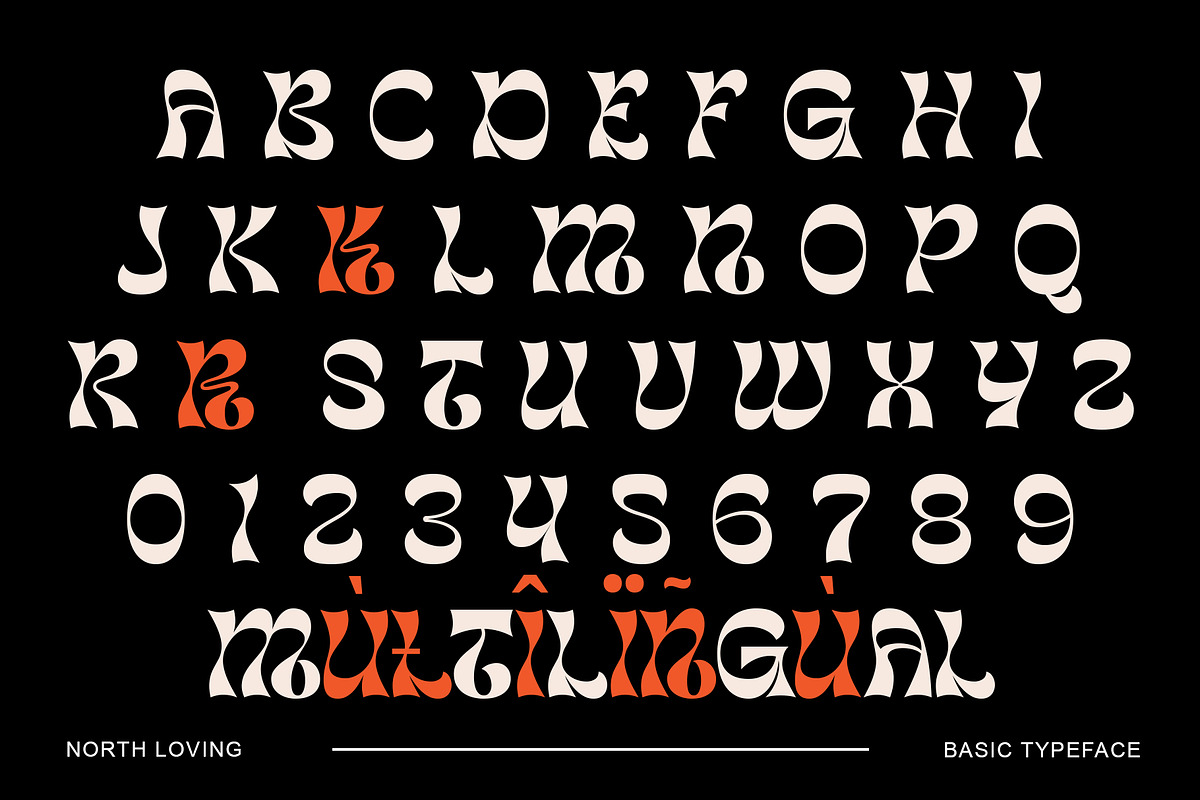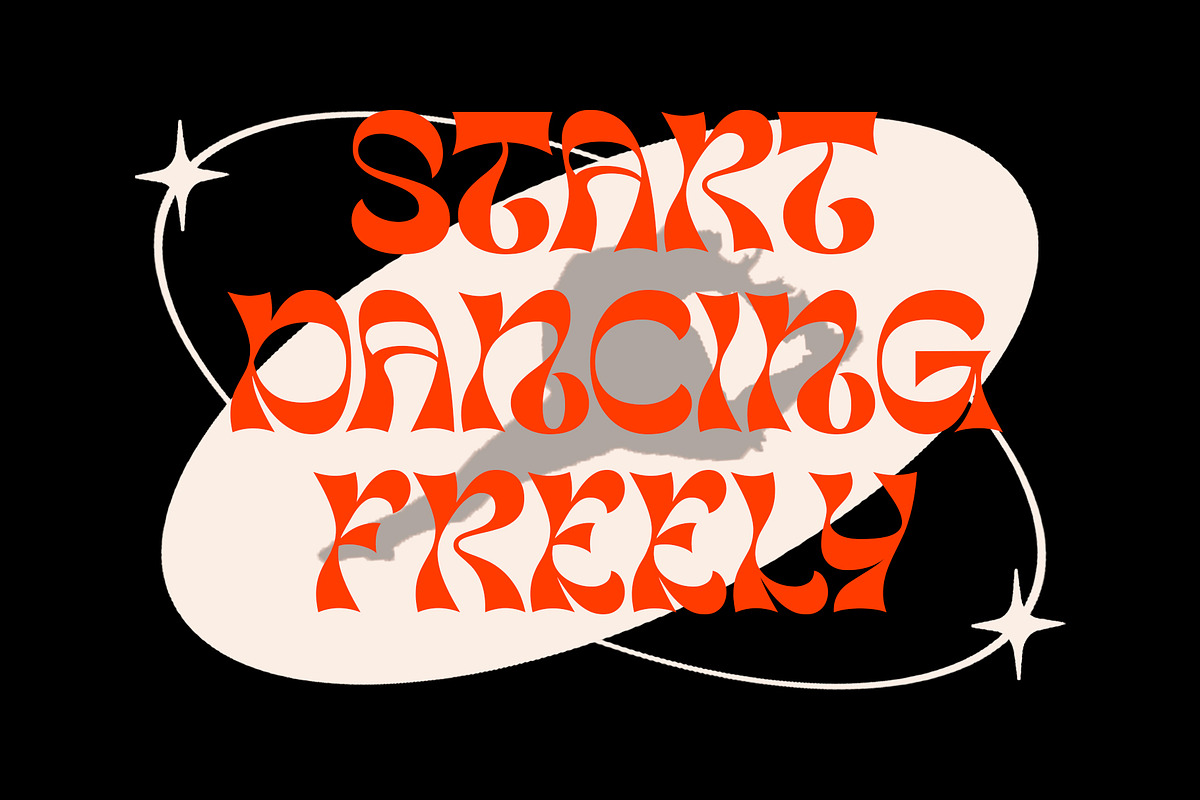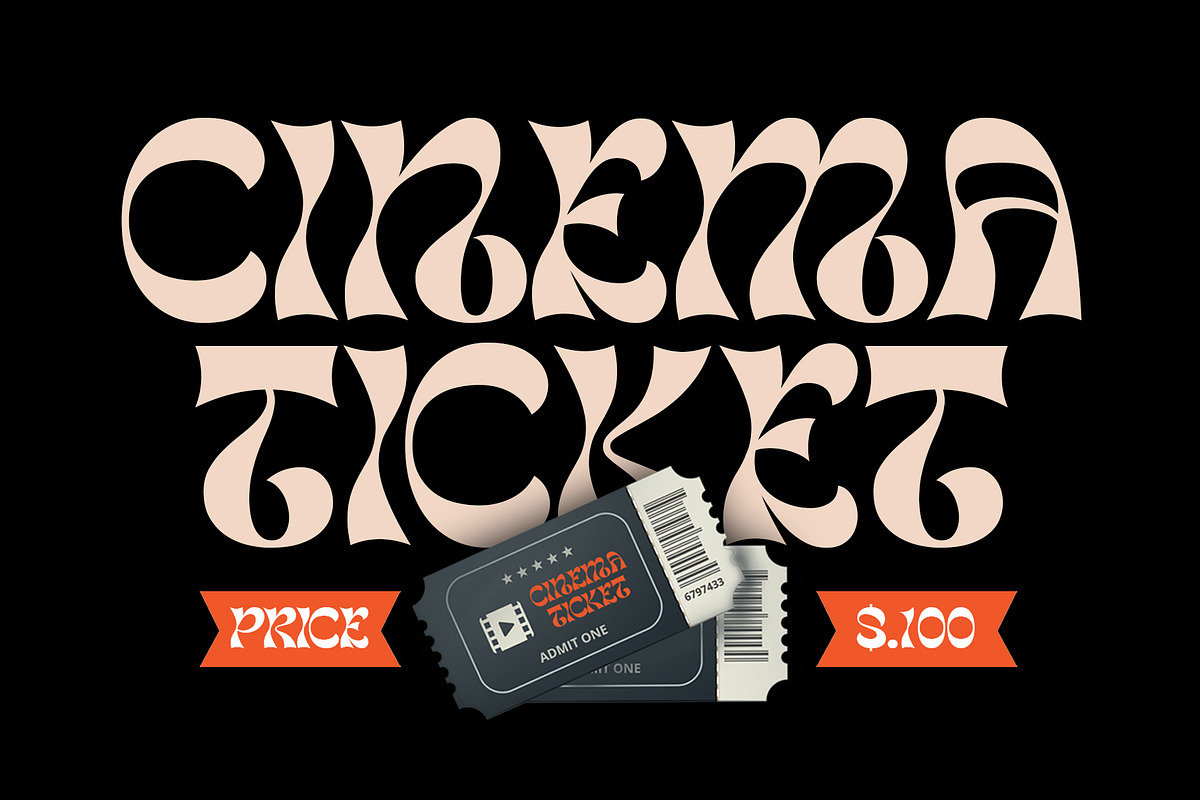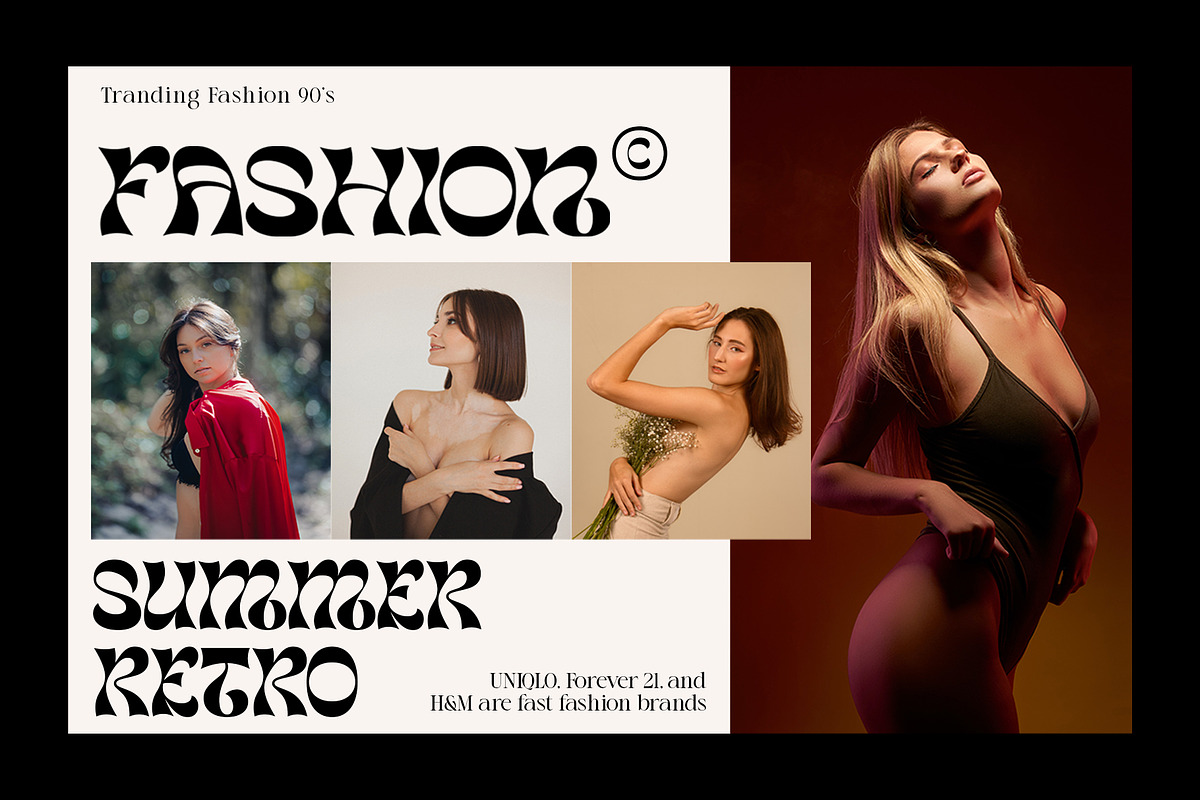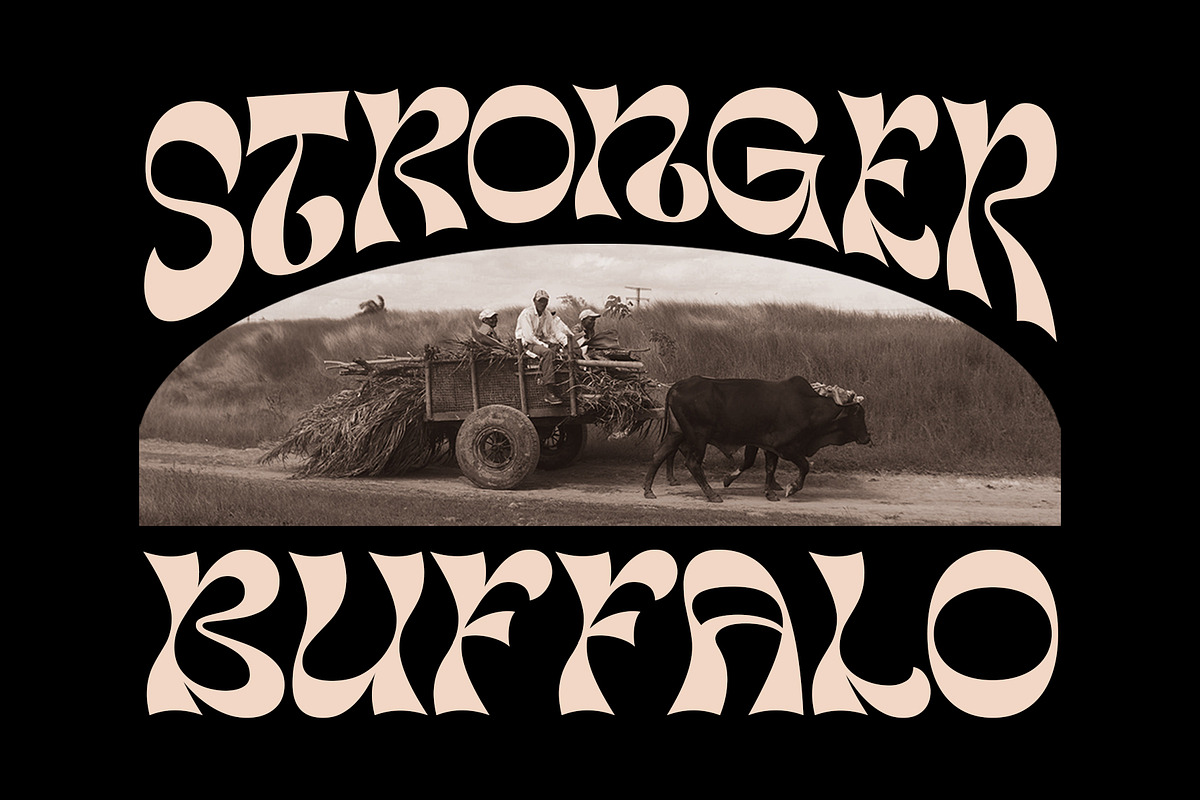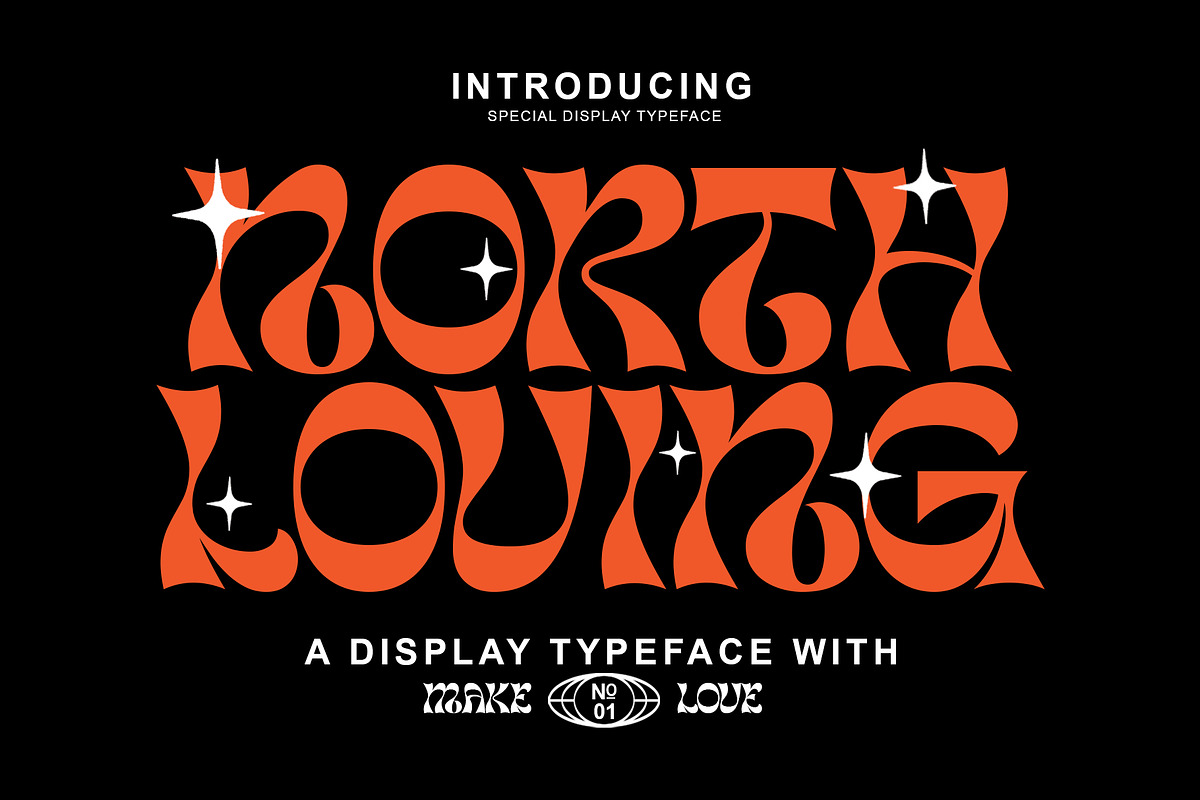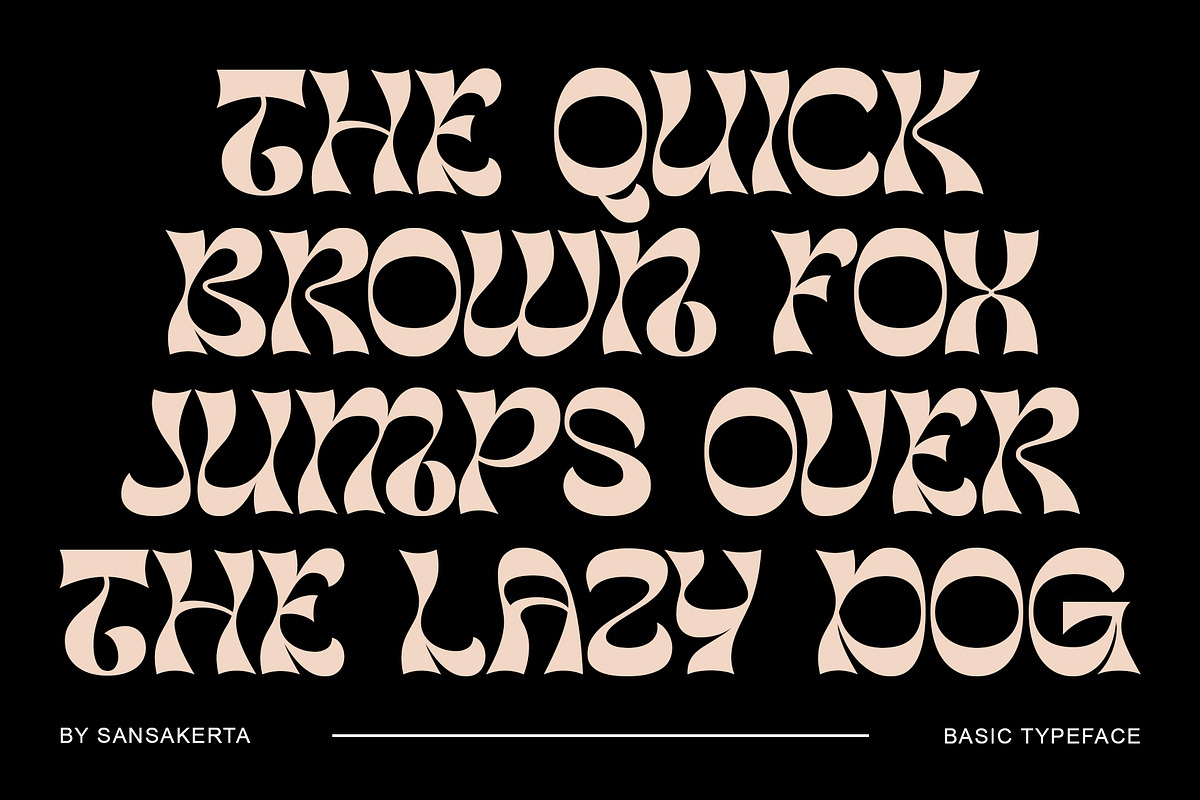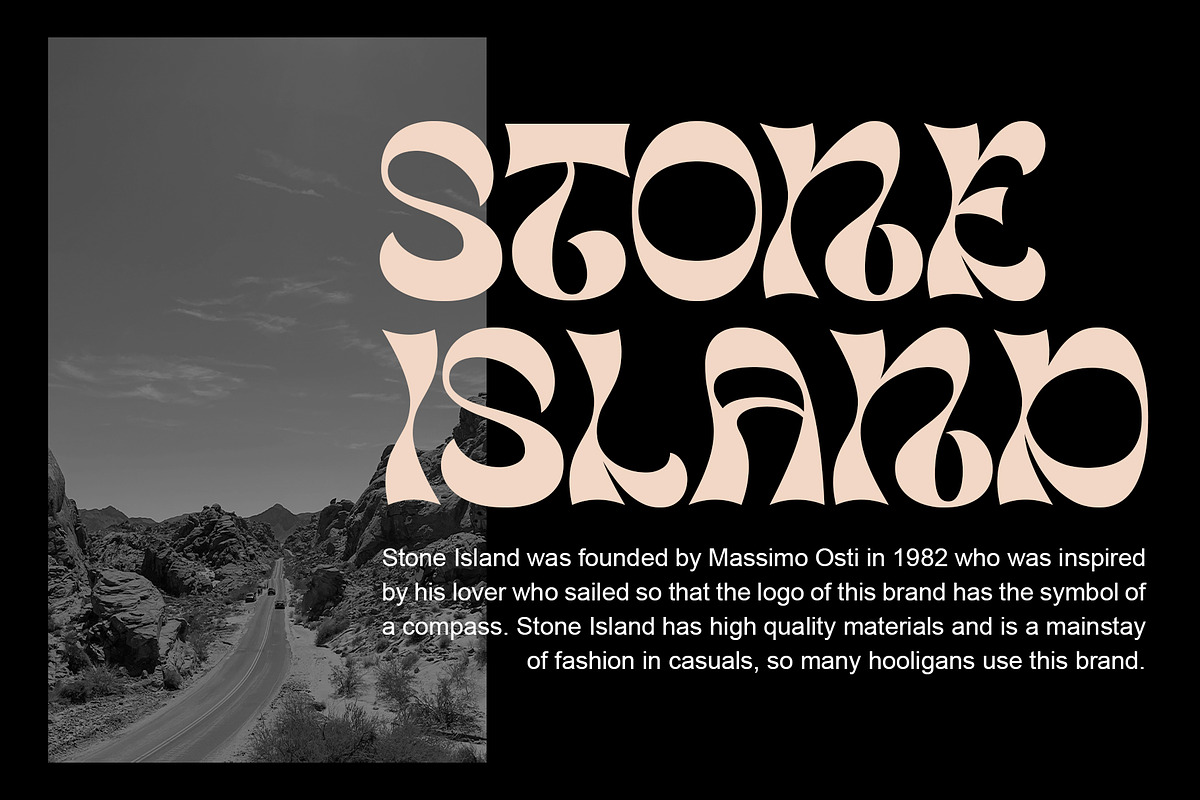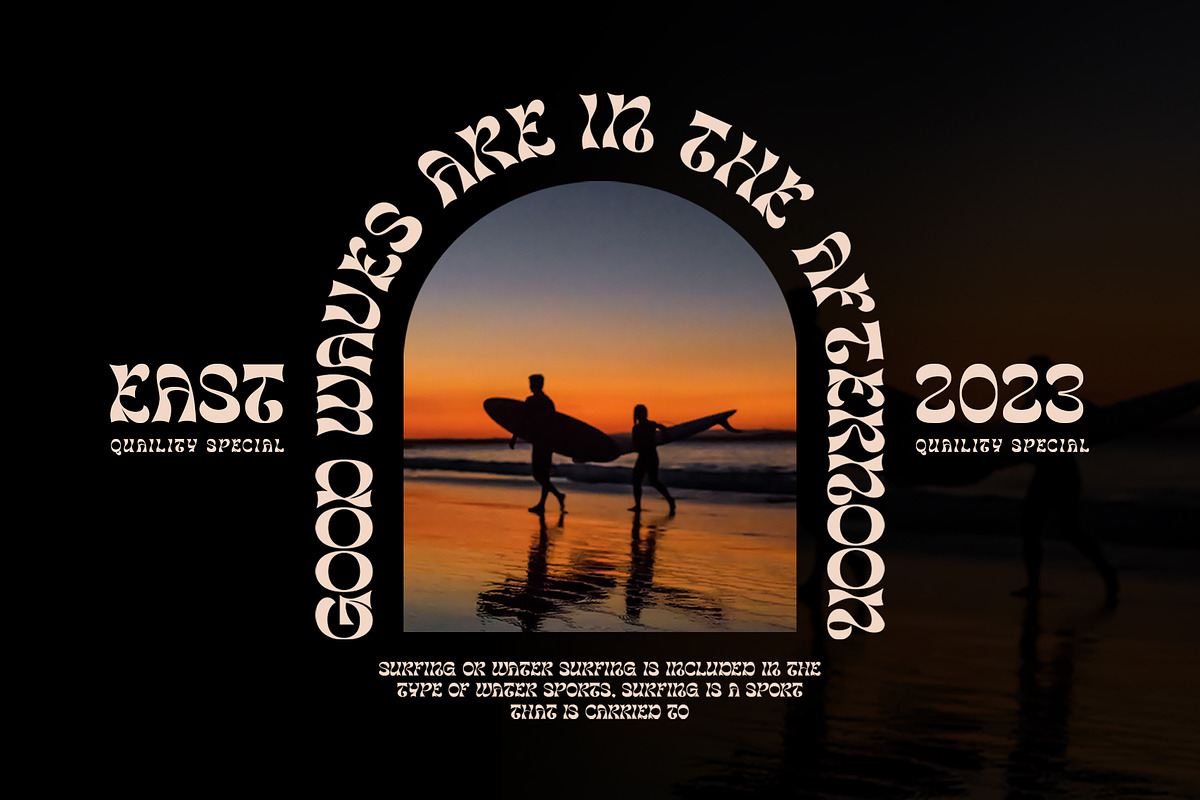
North Loving
North Loving is a display typeface full of retro power. It’s quirky, groovy, and funky— definitely charming. Bold and thick, a fun typeface to play with!